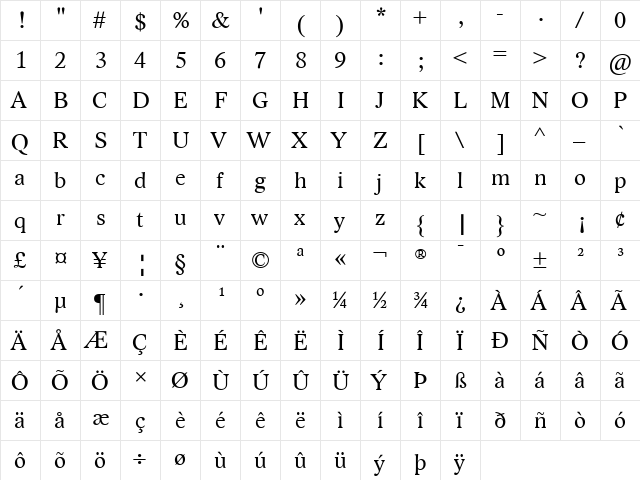
Lido STF CE Regular
Design Context for Lido STF CE Typeface
Lido STF CE offers clean, dependable letterforms without strong stylistic allegiance, making it a practical choice for designers who need flexibility.